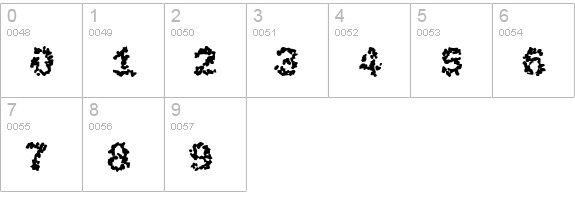
Funky25-Bold is a strong, high-contrast variant in the Funky25 typeface family \xE2\x80\x94 well suited to headlines, attention-grabbing titles, and strong calls-to-action.
Funky25-Bold font is a lively and energetic typeface that exudes a sense of fun and creativity. With its bold and distinctive design, this font is perfect for making a statement and adding a touch of funkiness to your projects. Whether you're designing posters, flyers, or social media graphics, Funky25-Bold font will surely grab attention and leave a lasting impression. The best part is that Funky25-Bold font is completely free to download at FontsMarket.com. You can easily access this unique and eye-catching font to elevate your designs and bring a fresh and exciting vibe to your work. Don't miss out on the opportunity to add some funky flair to your projects with Funky25-Bold font, available for free at FontsMarket.com!